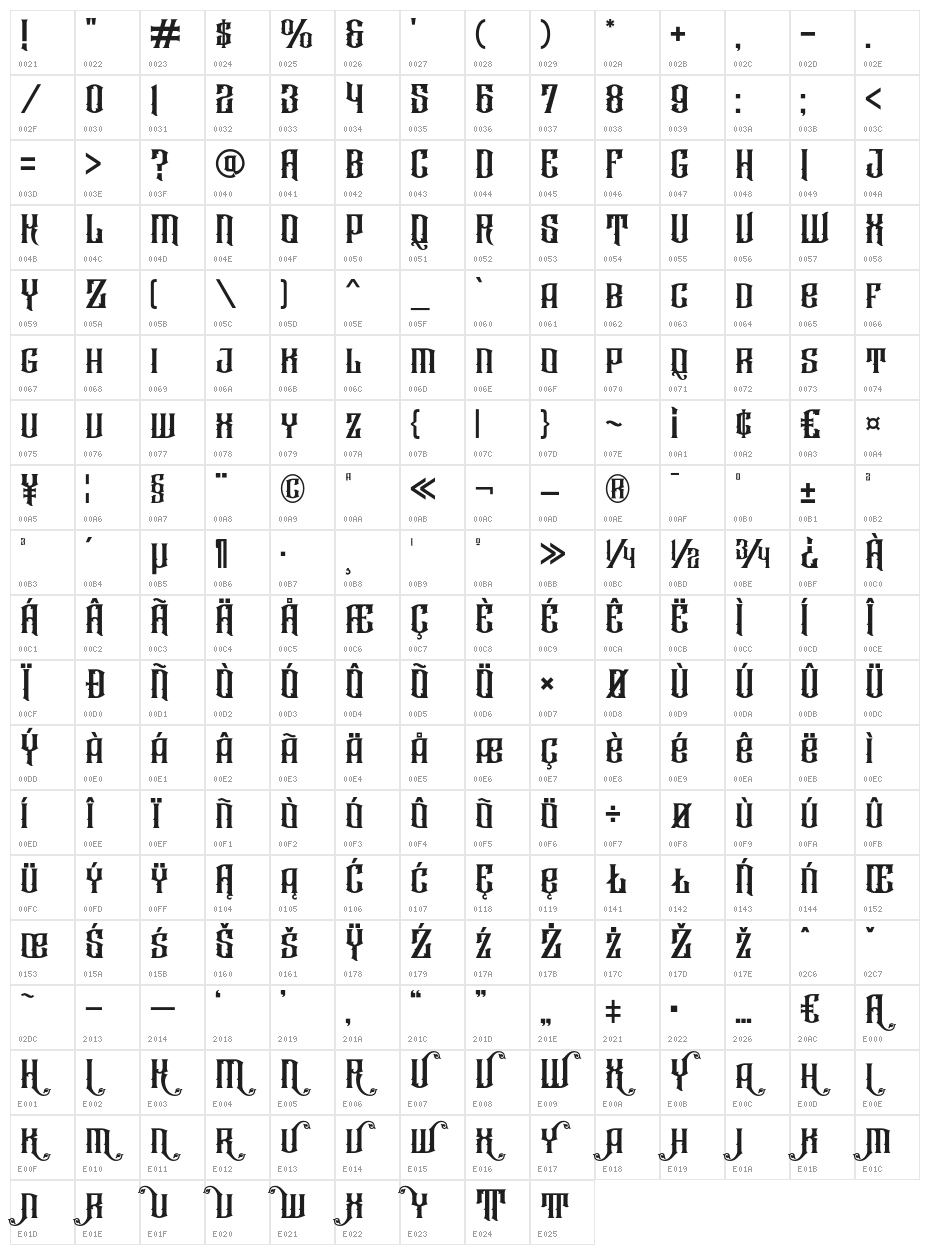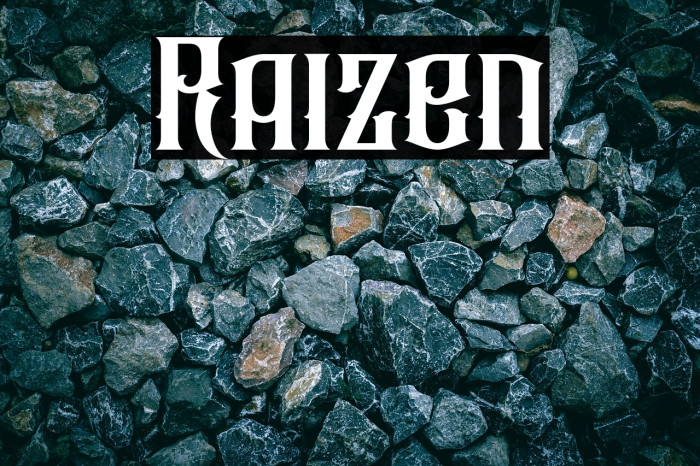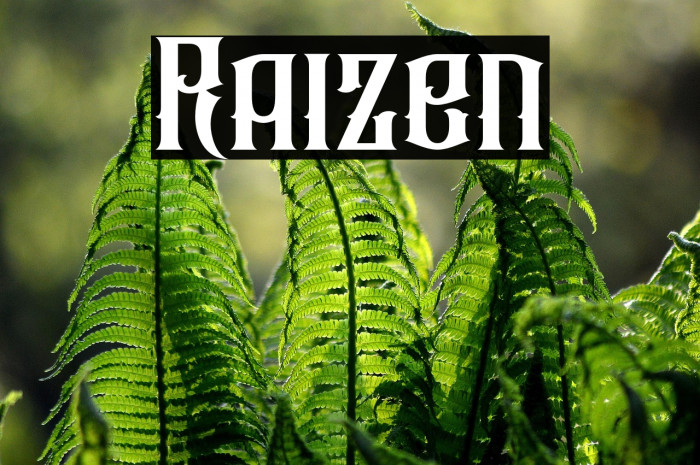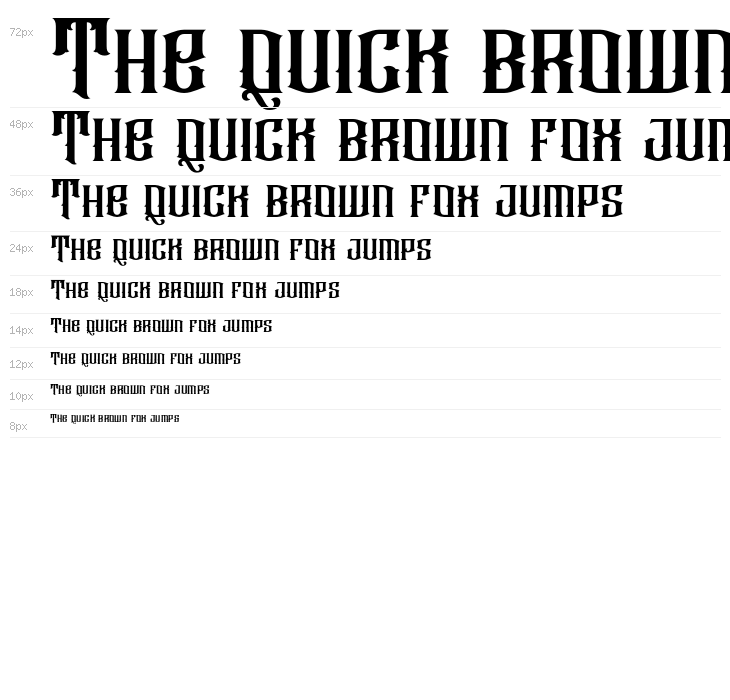
Raizen Font
Raizen Description
This font features a bold and striking design with a distinct blackletter style. The characters are intricately detailed, showcasing sharp edges and dramatic flourishes that evoke a sense of historical elegance. The uppercase and lowercase letters maintain a consistent aesthetic, with the uppercase being particularly ornate. Numbers and special characters are equally stylized, ensuring a cohesive look across all text. The overall appearance is both commanding and sophisticated, making it ideal for projects that require a touch of classic grandeur.
| Overall Style | Classic |
| Use Case | Logos, Headlines, Posters |
| Proposed Projects | Ideal for use in branding, posters, book covers, and any design that seeks to convey a sense of historical elegance or gothic style. |